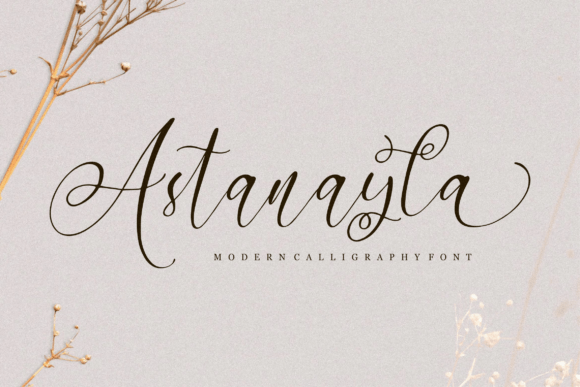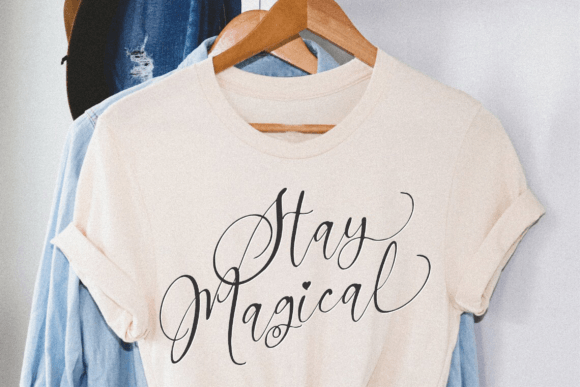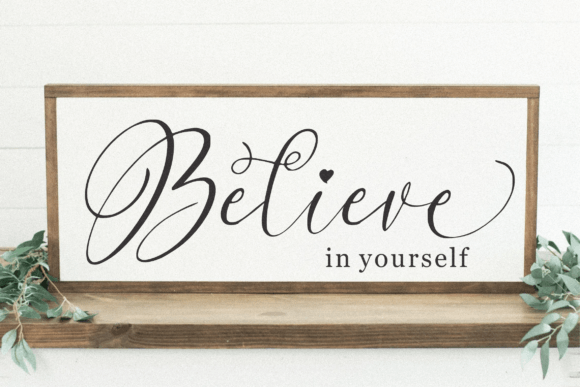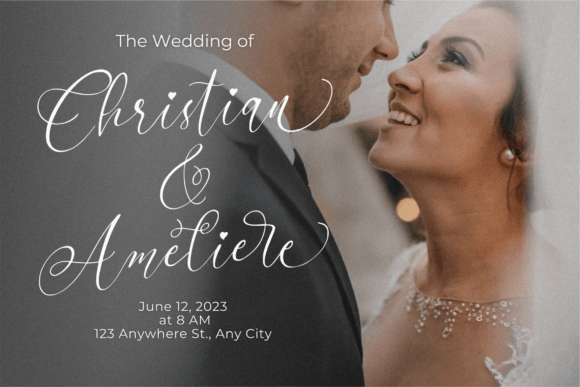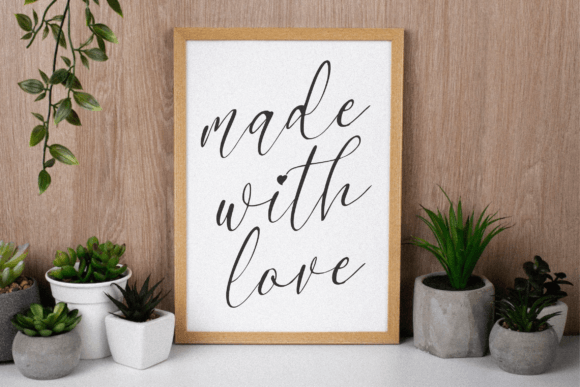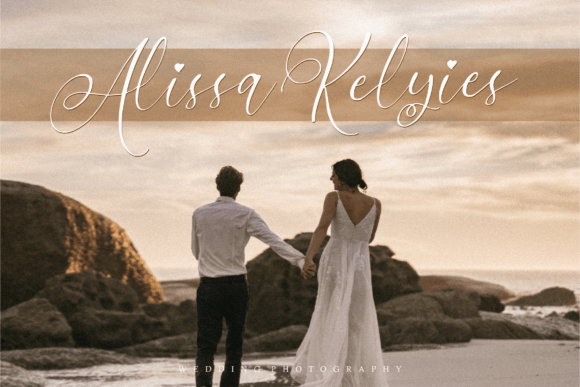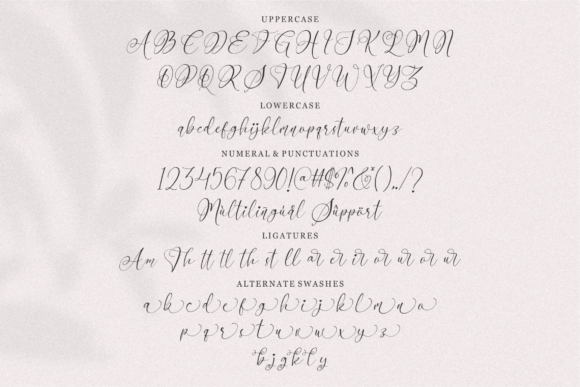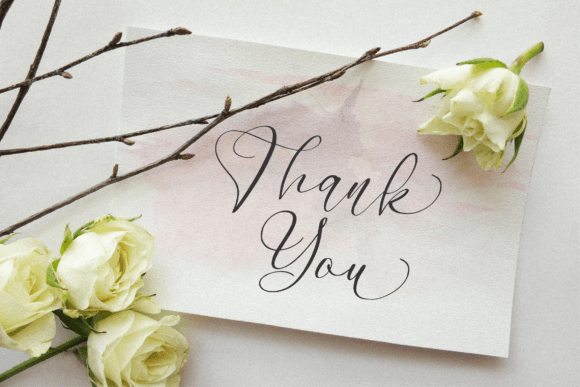
Astanayla Font
About Astanayla Calligraphy Font
Astanayla Calligraphy Font is a modern script typeface that combines elegance with versatility. With its flowing curves, balanced strokes, and timeless calligraphic style, it brings sophistication and warmth to any design. Because of its adaptability, Astanayla Calligraphy Font is perfect for product packaging, branding projects, social media graphics, wedding stationery, logos, and magazine layouts.
A Calligraphy Typeface with Modern Style
Calligraphy fonts are known for their beauty, and Astanayla Calligraphy Font embodies this quality perfectly. Its graceful letterforms create an authentic handwritten feel while maintaining a polished and professional look. Moreover, its clarity ensures that it works well for both decorative titles and detailed text.
Perfect Typeface for Invitations and Wedding Designs
Special occasions demand fonts that capture elegance, and Astanayla Calligraphy Font is a wonderful choice. For example, it adds sophistication to wedding invitations, save-the-date cards, and thank-you notes. Furthermore, it looks beautiful on greeting cards, event stationery, and seasonal designs, making every creation feel heartfelt and memorable.
A Script Typeface for Branding and Packaging
Businesses and creatives can also benefit from using Astanayla Calligraphy Font in branding. It works seamlessly for boutique logos, packaging, and product labels. Additionally, it enhances promotional materials, magazine covers, and digital campaigns. When paired with minimalist sans serif fonts, it creates a modern and professional identity.
Flexible Across Print and Digital Platforms
Another advantage of Astanayla CalligraphyFont is its adaptability across different media. In print, it enriches posters, brochures, and merchandise with a stylish finish. Digitally, it integrates smoothly into websites, blogs, and e-commerce platforms. Since it scales perfectly from small details to large headlines, it ensures readability and consistency everywhere.